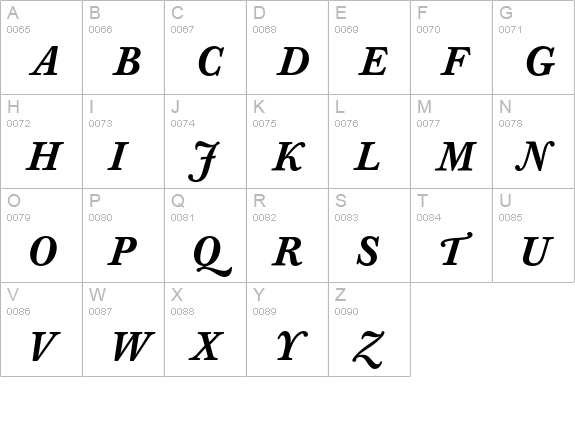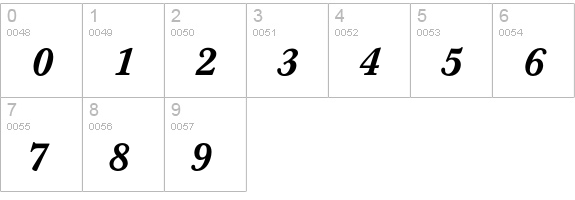
Baskerville Book BQ Medium Italic Font Details
Baskerville Book BQ Medium Italic is a comfortable, highly readable, italic variant in the Baskerville typeface family \xE2\x80\x94 well suited to long-form body text, articles, and editorial content.
The Baskerville Book BQ Medium Italic font is a timeless and elegant typeface that exudes sophistication and refinement. Its italic style adds a touch of flair and grace to any text, making it perfect for conveying a sense of elegance and style. The medium weight strikes a perfect balance between readability and impact, making it ideal for a wide range of design projects. What makes this font even more appealing is that it is available for free download at FontsMarket.com. This means that you can easily access this beautiful typeface without any cost, making it a valuable addition to your font library. Whether you are working on a print design, web project, or any other creative endeavor, the Baskerville Book BQ Medium Italic font is sure to elevate your work with its classic charm and sophistication.